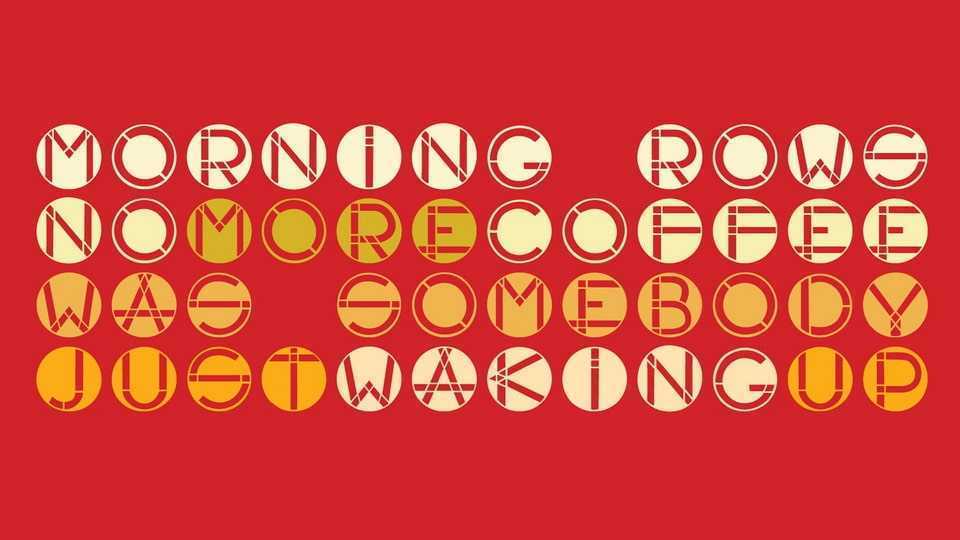
Download Otto font, a display typeface originally made for a reissue album of the British peace-punk band Hagar the Womb.
Designer: Justseeds Open Type Project